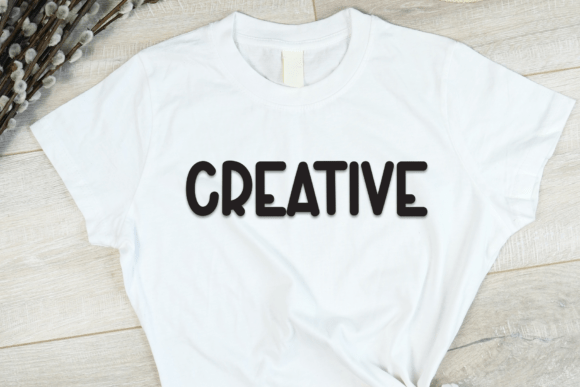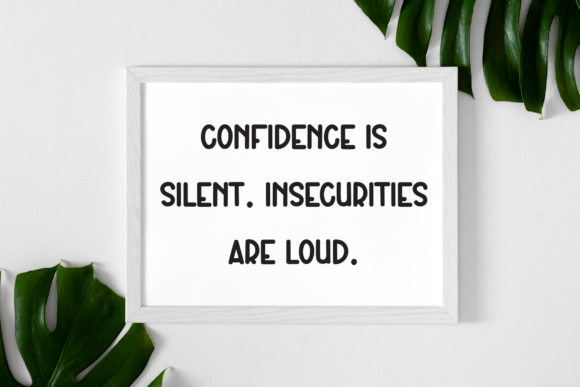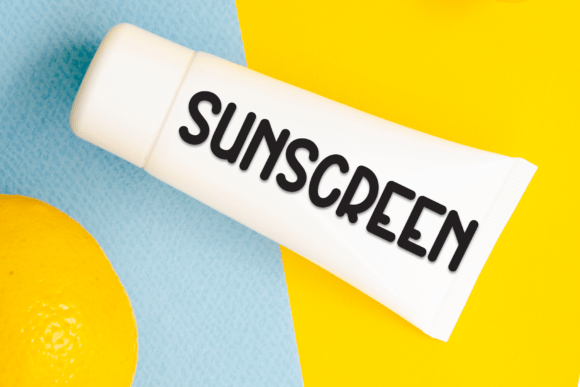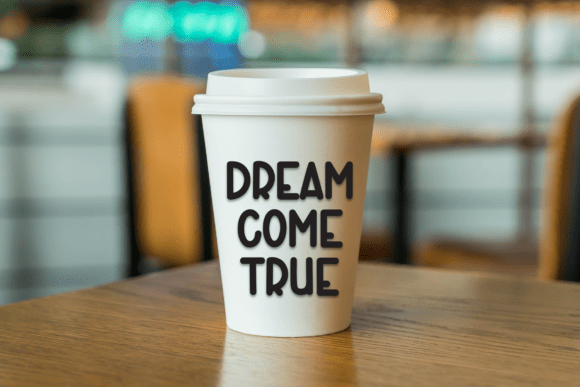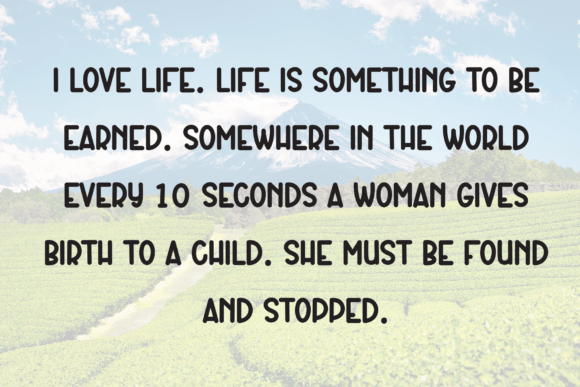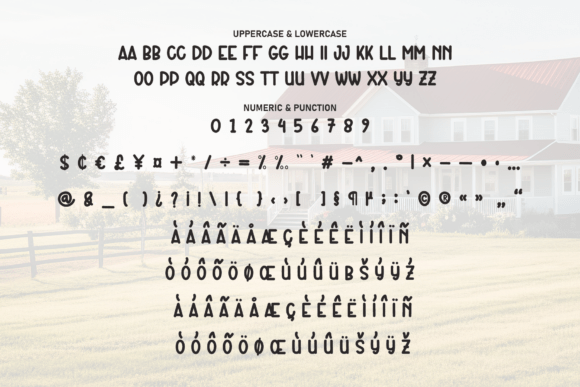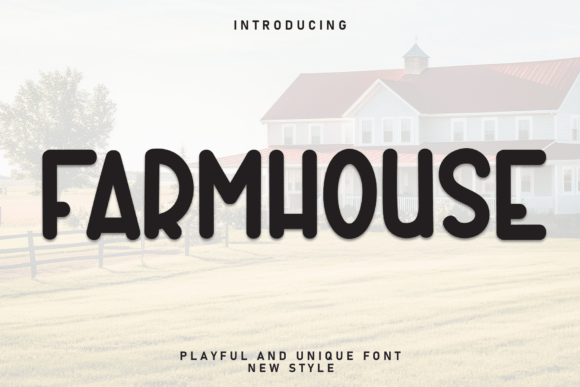
Discover the Charm of Farmhouse Font: A Perfect Blend of Clarity and Relaxed Elegance
In the world of typography, fonts play a crucial role in conveying the tone and personality of a brand or design. For those seeking a font that embodies a modern yet laid-back vibe, Farmhouse Font is an excellent choice. This neat and casual display font has gained popularity among designers and crafters for its unique ability to blend clarity with a relaxed, approachable feel. In this article, we’ll explore the characteristics of Farmhouse Font and why it’s ideal for a variety of design projects.
Clean Lines and Friendly Letterforms
One of the standout features of Farmhouse Font is its clean lines and friendly letterforms. The font’s design is characterized by simple, uncomplicated shapes that make it easy to read and understand. The clean lines also give the font a crisp, modern look that’s perfect for headlines, posters, and packaging designs. At the same time, the friendly letterforms add a touch of warmth and approachability, making the font suitable for brands that want to convey a sense of comfort and familiarity.
Perfect for Headlines, Posters, and Branding
Farmhouse Font is a versatile font that’s suitable for a wide range of design projects. Its clarity and readability make it perfect for headlines, titles, and short paragraphs of text. The font’s friendly and approachable vibe also makes it ideal for posters, flyers, and other marketing materials that aim to grab attention and engage the audience. Additionally, Farmhouse Font is a great choice for branding projects, as it can help create a consistent visual identity that’s both modern and laid-back.
Balanced Structure and Playful Energy
What sets Farmhouse Font apart from other display fonts is its balanced structure and playful energy. The font has a well-balanced design that’s neither too bold nor too subtle, making it easy to use in a variety of contexts. At the same time, the font has a playful energy that’s perfect for designs that require a touch of personality and whimsy. This balance of structure and playfulness makes Farmhouse Font an excellent choice for designers who want to add some flair to their designs without overwhelming the message.
Ideal for Designs that Call for Style and Readability
Farmhouse Font is an excellent choice for designers and crafters who want to create designs that are both stylish and readable. The font’s clean lines, friendly letterforms, and balanced structure make it perfect for designs that require a high level of clarity and legibility. At the same time, the font’s playful energy and modern vibe make it suitable for designs that aim to be trendy and visually appealing. Whether you’re working on a branding project, a poster design, or a packaging project, Farmhouse Font is an excellent choice.
Tips for Using Farmhouse Font in Your Designs
To get the most out of Farmhouse Font, here are some tips to keep in mind:
- Use Farmhouse Font for headlines, titles, and short paragraphs of text to create a clear and readable design.
- Pair Farmhouse Font with other fonts to create a unique and visually appealing typography.
- Use Farmhouse Font for branding projects to create a consistent visual identity that’s both modern and laid-back.
Farmhouse Font is a versatile and charming display font that’s perfect for designers and crafters who want to add a touch of modern elegance to their designs. With its clean lines, friendly letterforms, and balanced structure, Farmhouse Font is ideal for a wide range of design projects, from headlines and posters to branding and packaging. Whether you’re looking for a font that’s stylish, readable, and playful, Farmhouse Font is an excellent choice.
So why not give Farmhouse Font a try? With its unique blend of clarity and relaxed elegance, it’s sure to bring a touch of personality and whimsy to your designs.